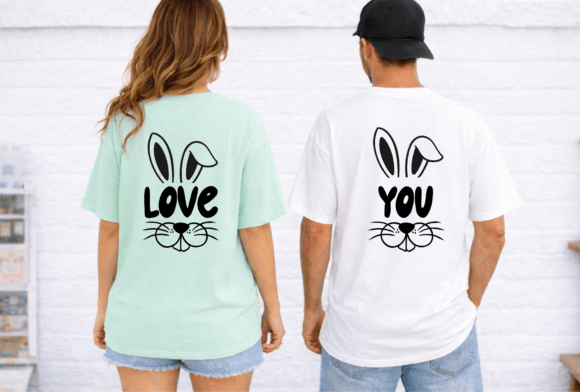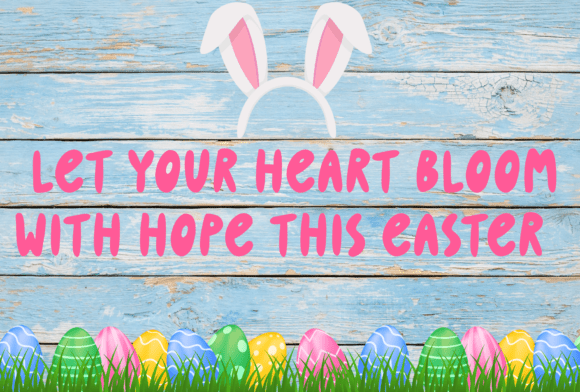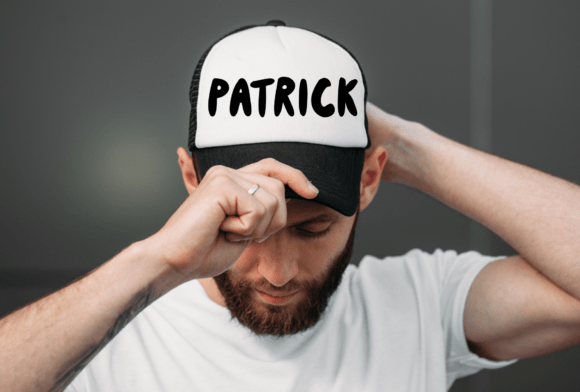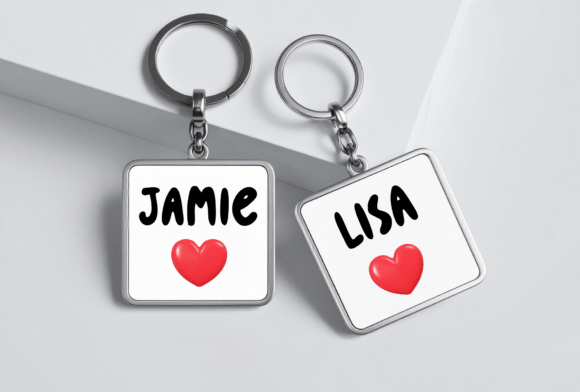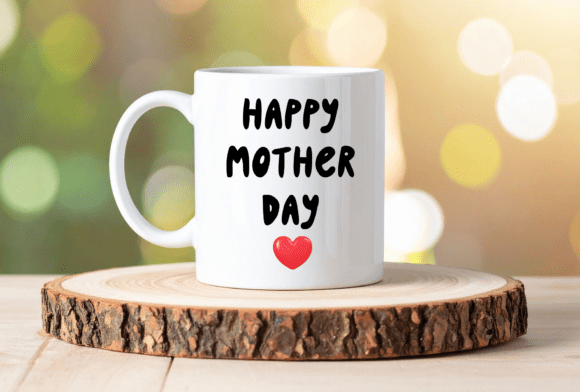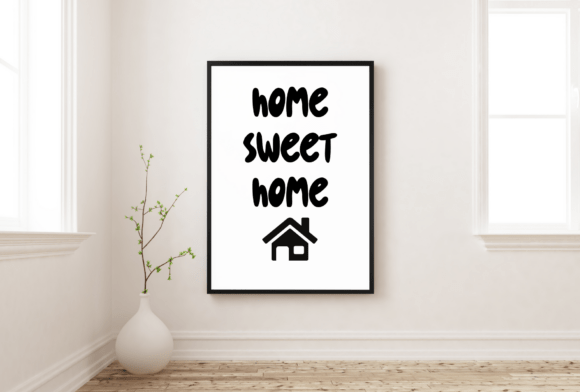
Enter the Honey Bouncy Display Font, a sweet and charming font that’s perfect for adding a playful touch to your projects. With its soft, bouncy style and rounded letters, this font is sure to bring warmth and personality to any design. Whether you’re creating stickers, mugs, or social media graphics, the Honey Bouncy Display Font is a valuable tool in your design arsenal.
Honey Bouncy Display Font Key Features
- Size: The font is designed to be highly legible at large sizes, making it ideal for use in headings, titles, and other display typography.
- Resolution: The font is optimized for use at high resolutions, ensuring crisp and clear rendering on high-resolution displays.
- Unique Characteristics: The Honey Bouncy Display Font features a distinctive, bouncy aesthetic that adds a touch of whimsy and playfulness to any design.
Honey Bouncy Display Font Review
I recently had the chance to work with the Honey Bouncy Display Font, and I must say it’s been a wild ride. ✨ Let’s start with the good stuff.
- It’s super playful and fun to use, perfect for projects that need a lighthearted touch.
- The font is highly customizable, allowing for easy adjustments to color, size, and spacing.
- It’s incredibly versatile, suitable for a wide range of applications, from logos to social media graphics.
However, like any font, it’s not without its limitations ⚠️. Here are a few things to keep in mind:
- The font may be too whimsical for more formal projects, so use with caution.
- It’s a display font, which means it’s not ideal for large blocks of text.
- Some users may find the font’s irregularities distracting, so it’s essential to balance it with other design elements.
Overall, I think the Honey Bouncy Display Font is a great addition to any designer’s toolkit. It’s perfect for projects that need a touch of fun and whimsy, but it’s essential to use it thoughtfully to avoid overwhelming the viewer.
Honey Bouncy Display Font is perfect for creating eye-catching headings and titles. Use it to add a playful touch to your designs.
Some common use cases include:
1. Social media graphics and ads.
2. Event invitations and flyers.
3. Branding and logo designs.
4. Digital signage and presentations.